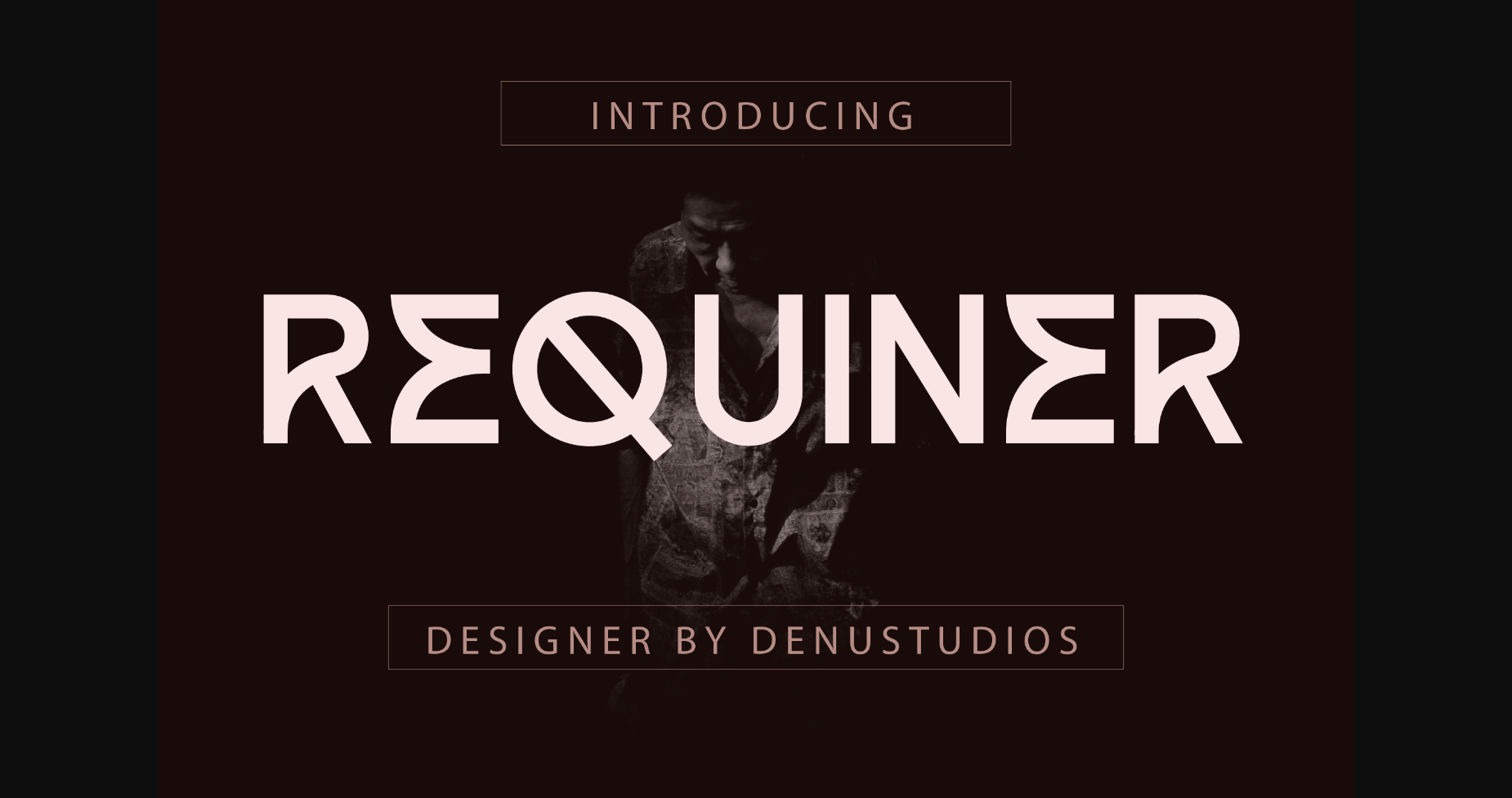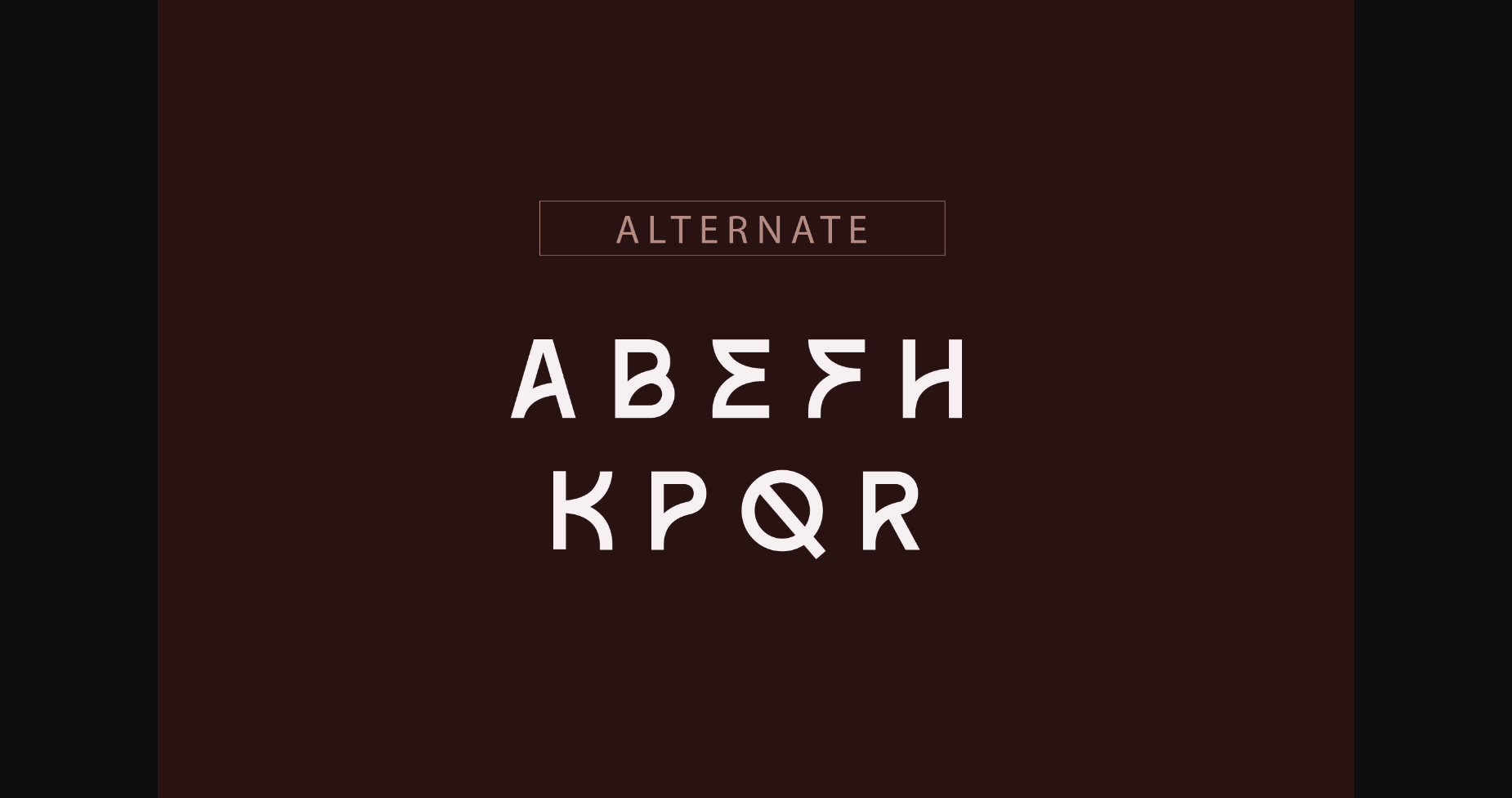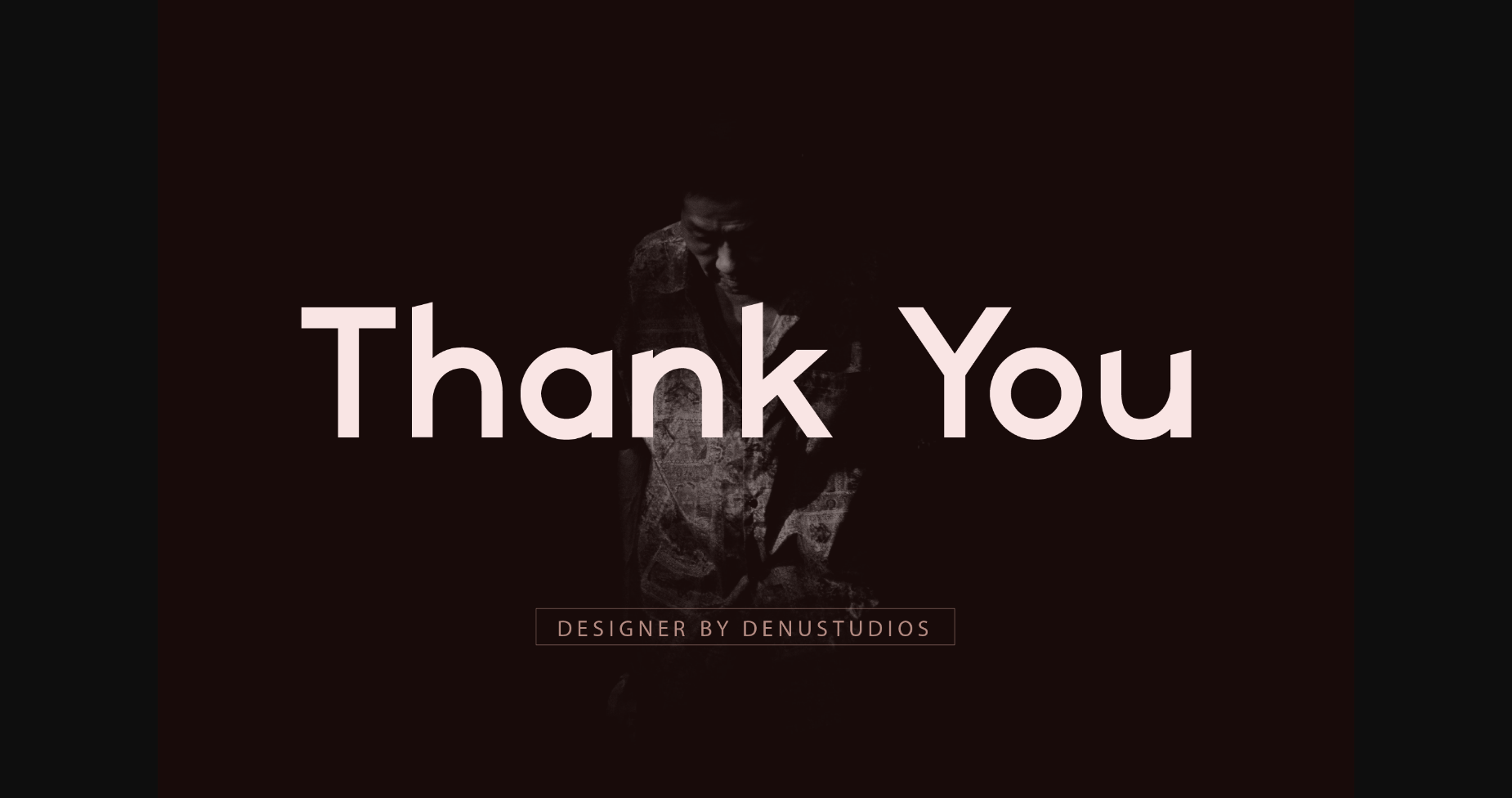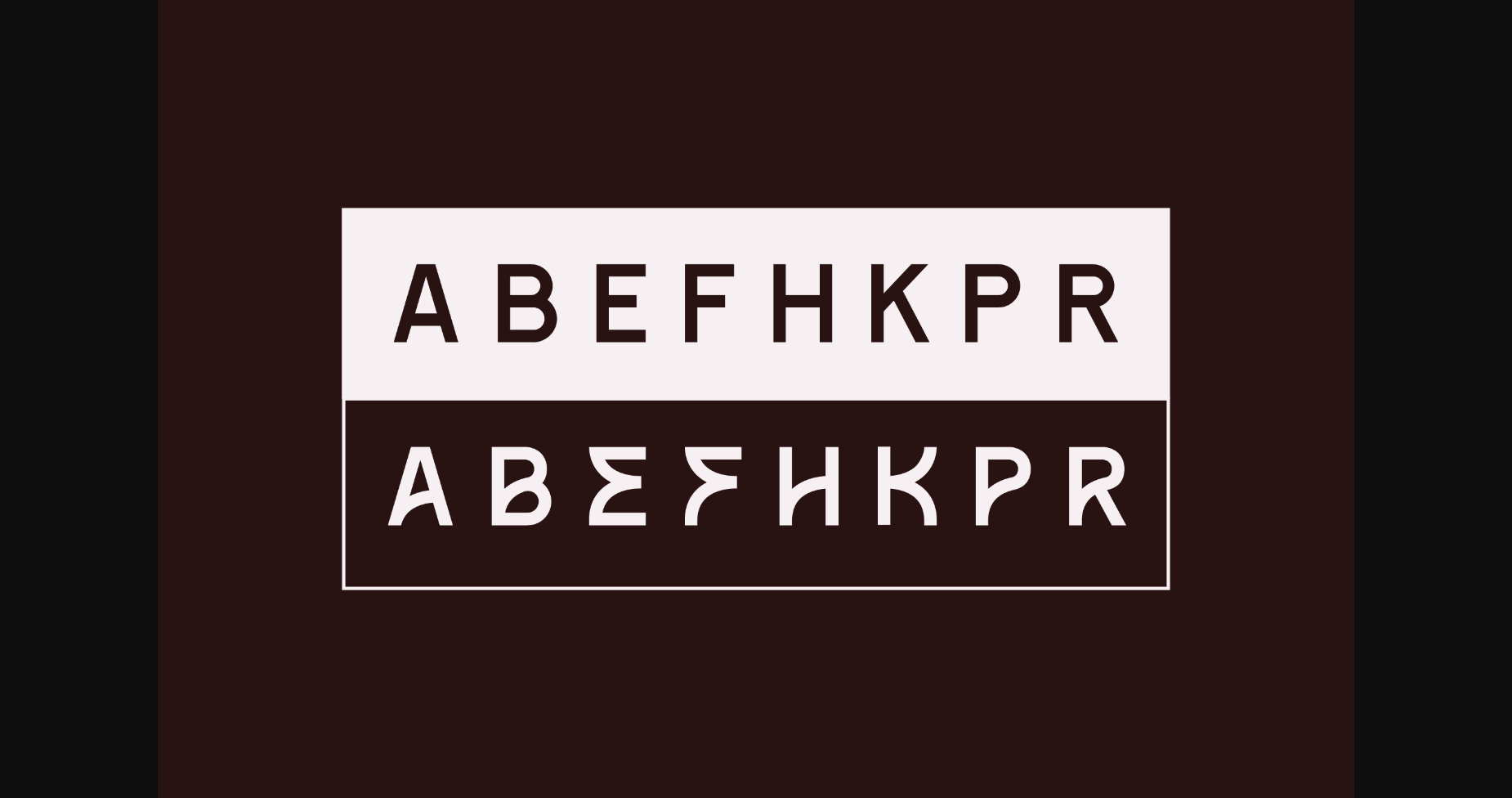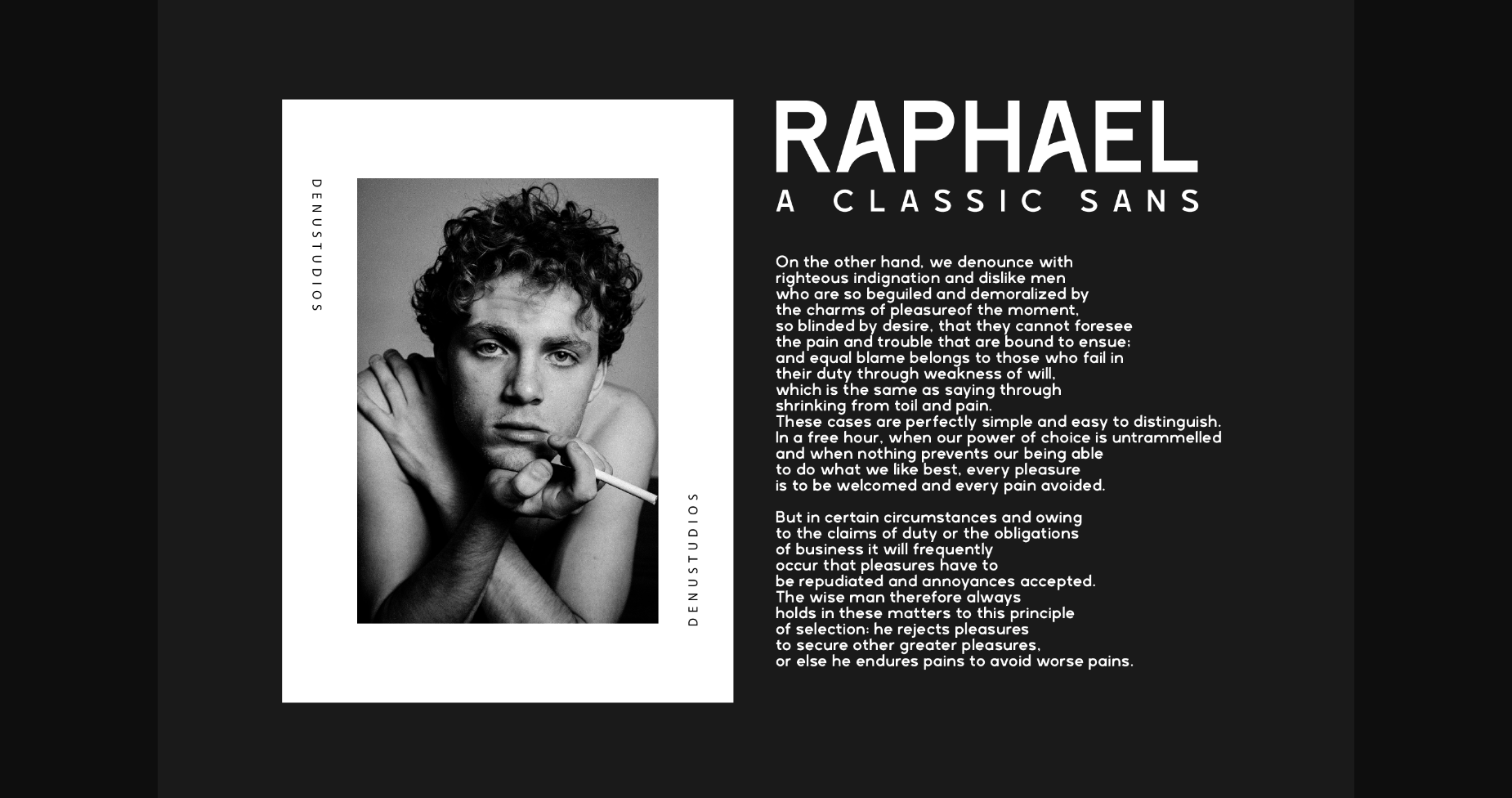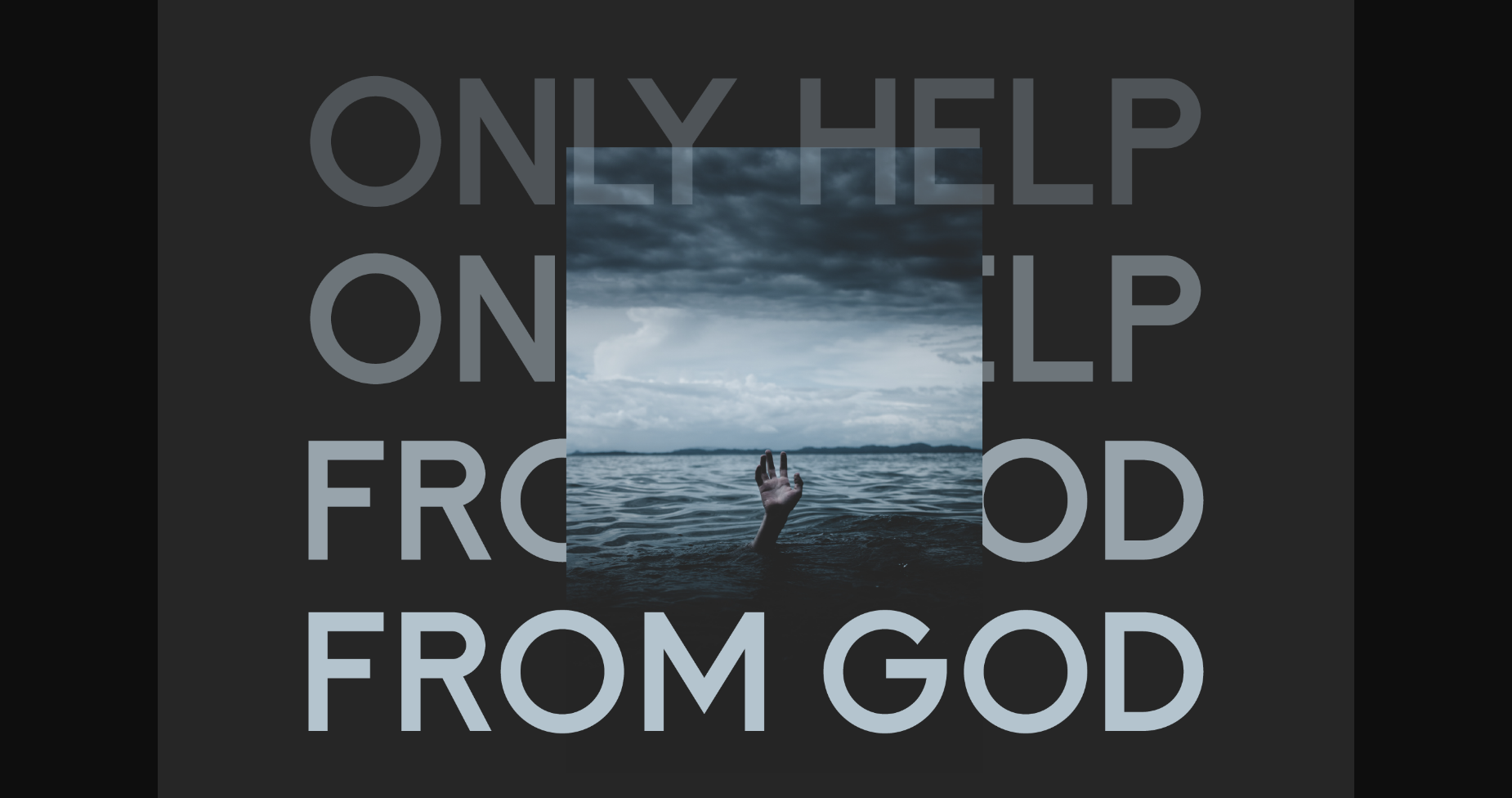
Requiner Font
About Requiner Font
Requiner is a modern and classic sans-serif typeface that has its own unique style & modern look. This typeface is perfect for an elegant & luxury logo, book or movie title design, fashion brand, magazine, clothes, lettering, quotes, and so much more.